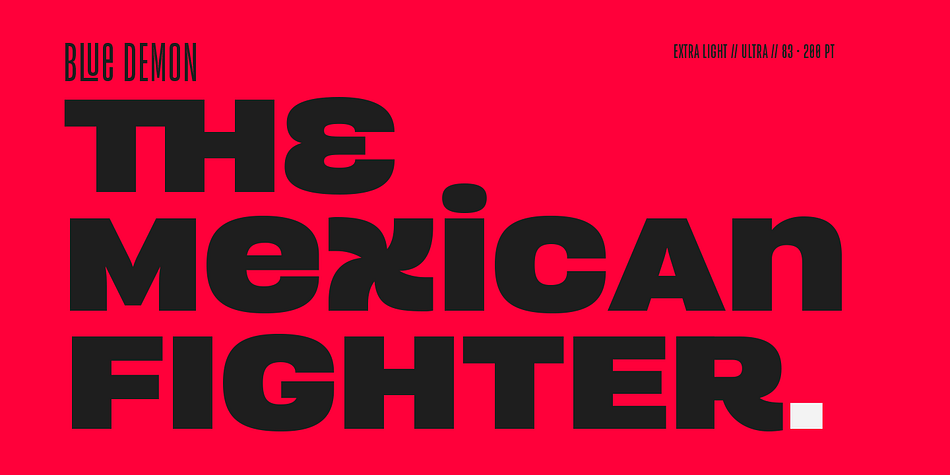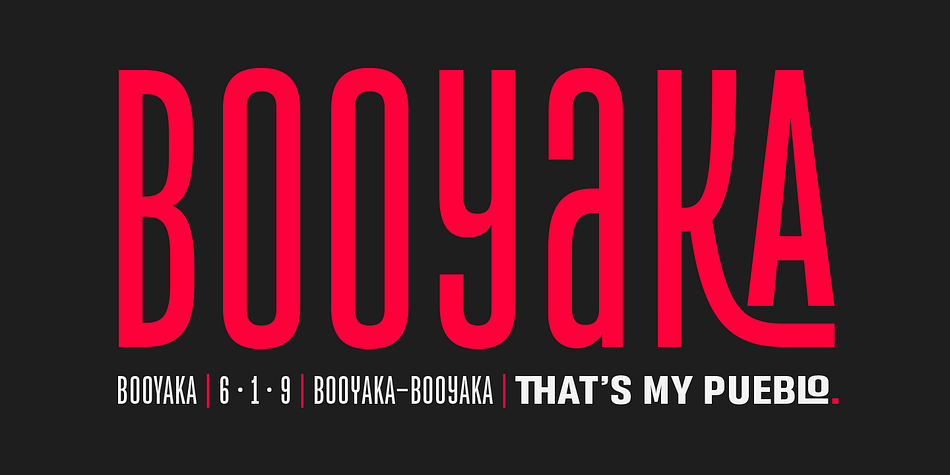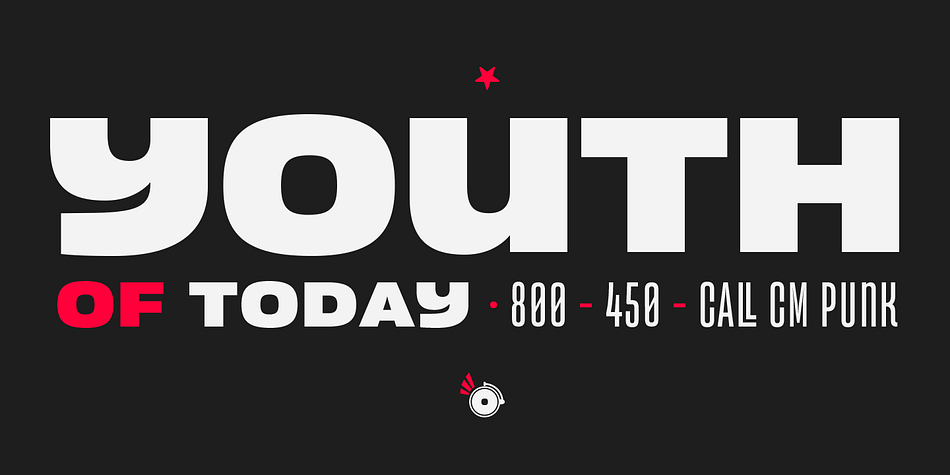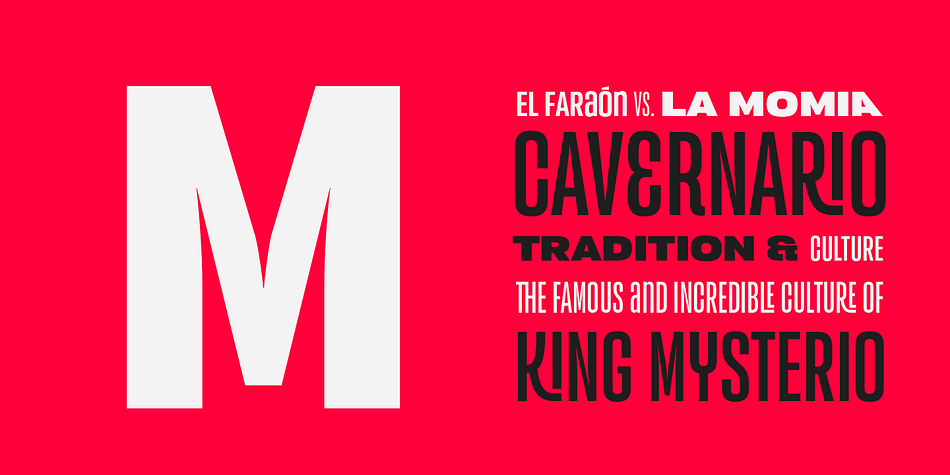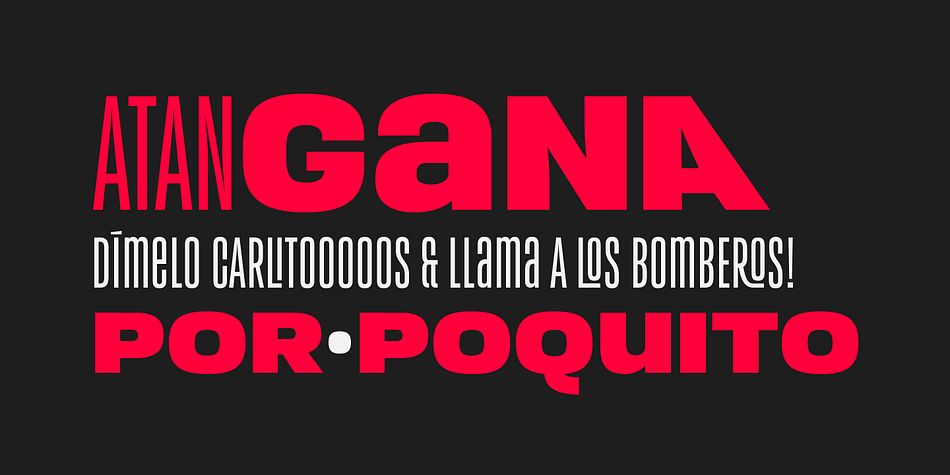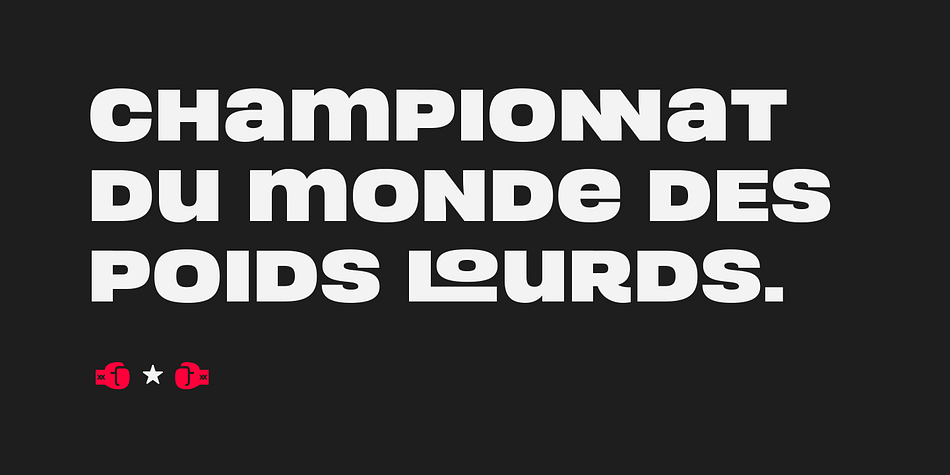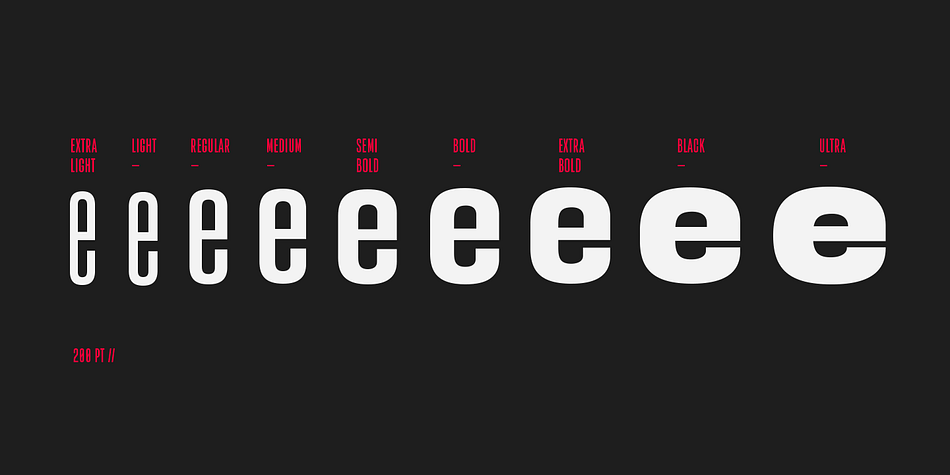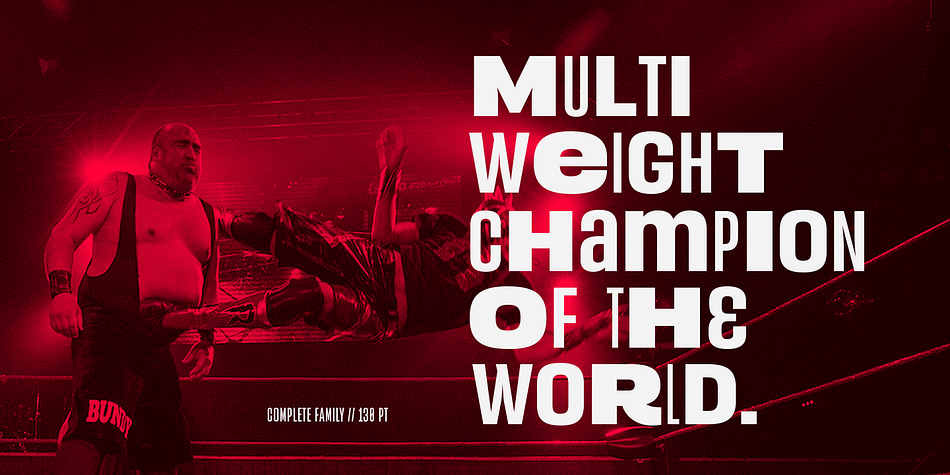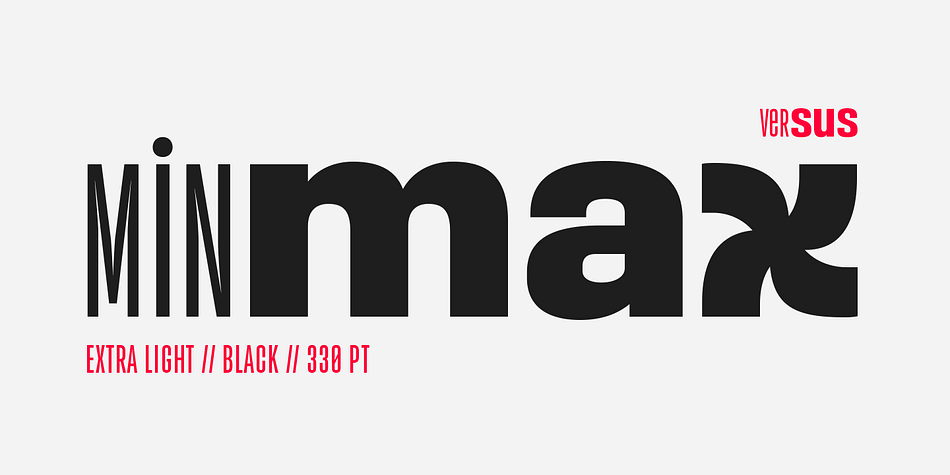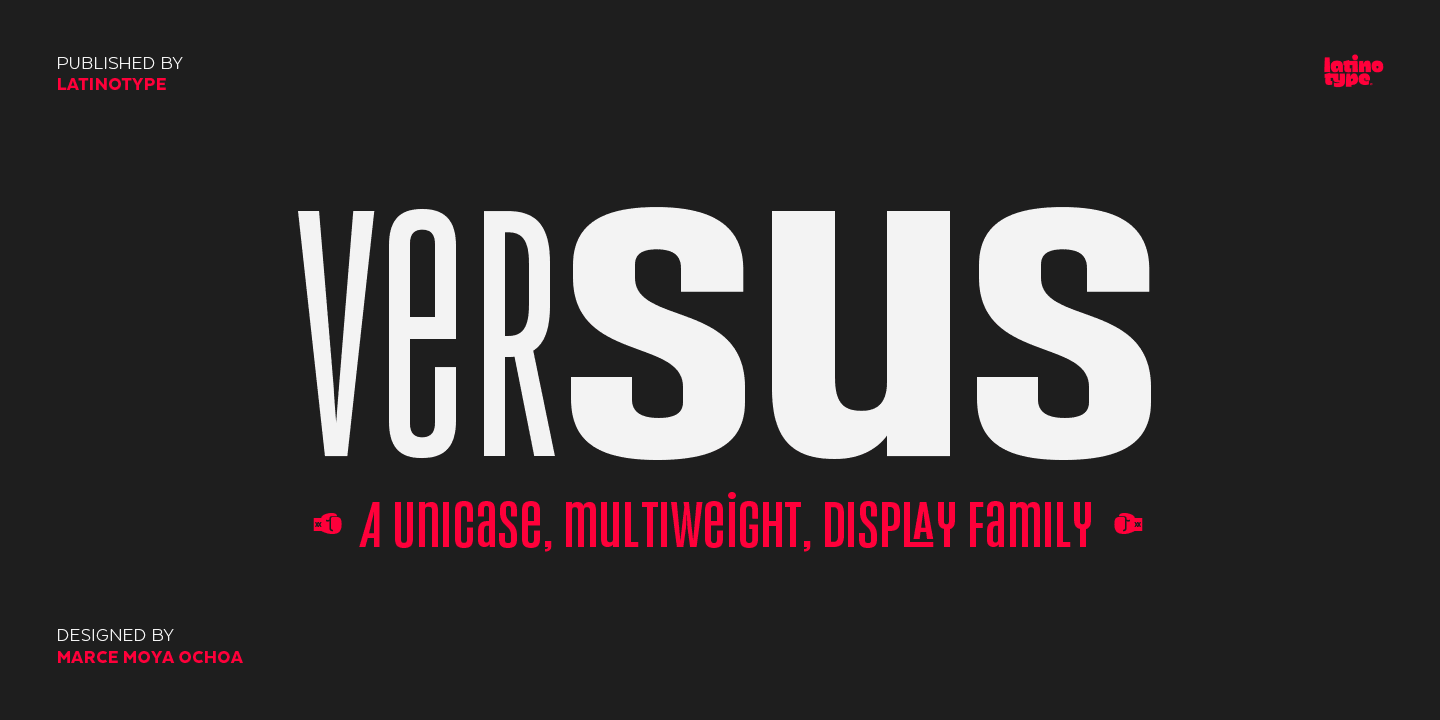
Designed by Marcelo Moya, Versus is a display sans font family. This typeface has nine styles and was published by Latinotype.
A unicase typeface inspired by Latin American wrestling.
Versus is a type system designed for use with short and block text. The font, based on well-known typefaces found on boxing posters, combines Latin American elements and wrestling; it is this mixture of widths and weights and different styles which helps give your designs a unique flavour and personality.
Versus is a unicase sans serif font well-suited for display use; its orthogonal terminals and short ascenders and descenders make it ideal for block of texts. By mixing different weights, you can have a wide range of design options—short text, isolated words, logos, titles, branding design, posters, etc.
The Versus family comes in 9 weights—from a lightweight and condensed Extra Light to an expanded and heavy Ultra. Its character set supports over 200 different languages. The font also includes a large number of stylistic alternates and a complete ligature set which give your compositions a strong identity and personality.